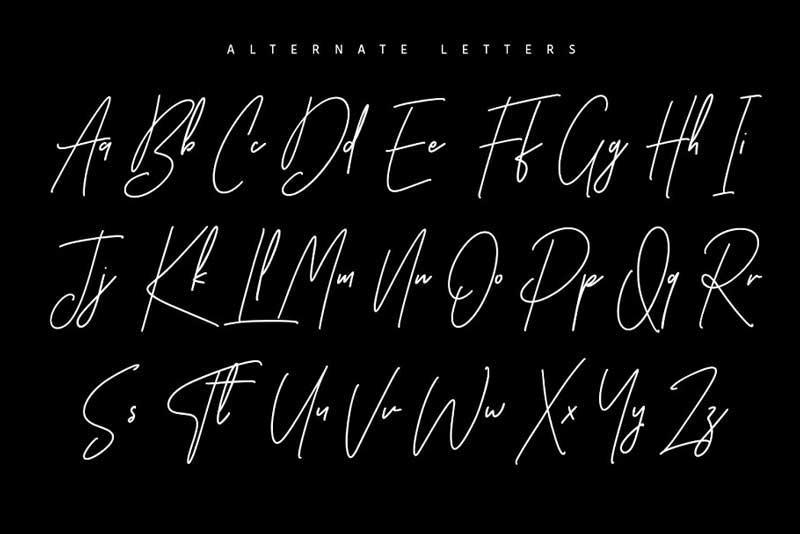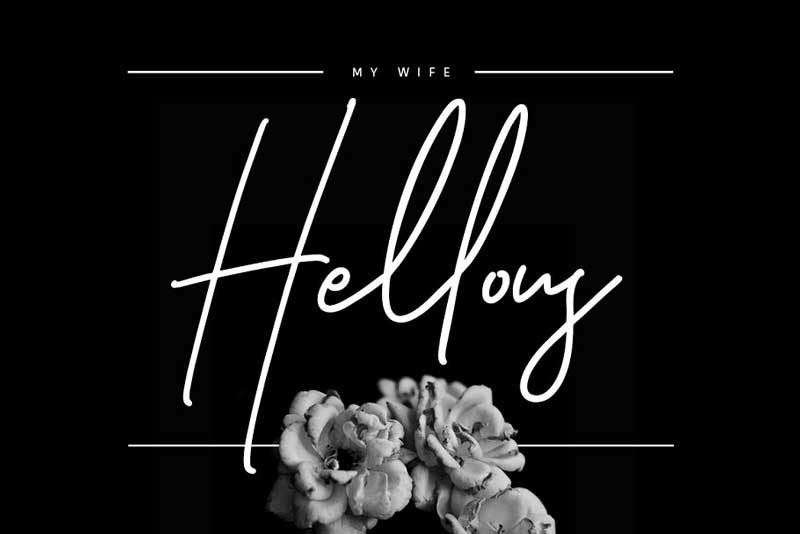
Ansterdam – Clean Signature Font 3173766
Ansterdam Clean Signature Font 3173766
Ansterdam Font Specially Designed For Signature Stationery, Logo, Typography Quotes, Magazine or Book Cover, Website header, Clothing, Branding, Packaging Work. Its Gives You a Premium Feel And Amazing Styles Look.